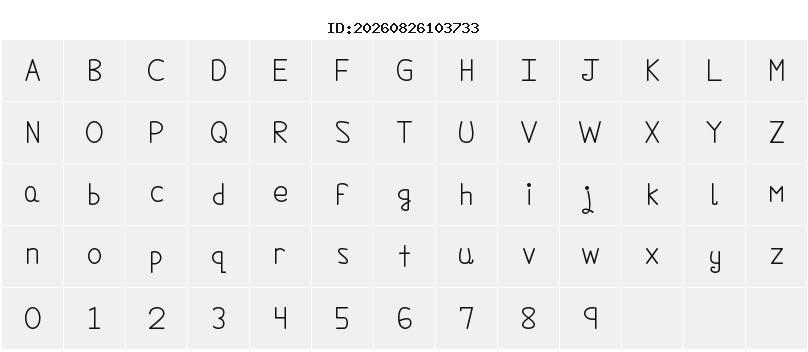
We Are In Love (Heartless) Preview
• Font Name: We Are In Love (Heartless)
• Full Font Name: We Are In Love (Heartless)
• Version: Version 1.00 February 1, 2013, initial release
• Designer: MiffinFonts
About We Are In Love (Heartless).ttf
We Are In Love (Heartless).ttf is a modern, elegant sans-serif font designed for ultimate readability and visual harmony. Perfect for branding, headlines, web design, and print materials.